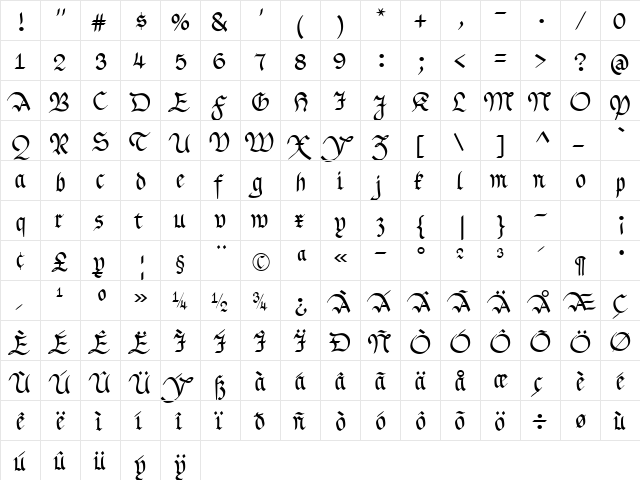
Zumbelsburg Bold
Design Context for Zumbelsburg Typeface
Zumbelsburg is a composed and adaptable typeface that performs quietly and consistently across a wide range of design contexts. The heavy weight commands attention and anchors typographic hierarchies.